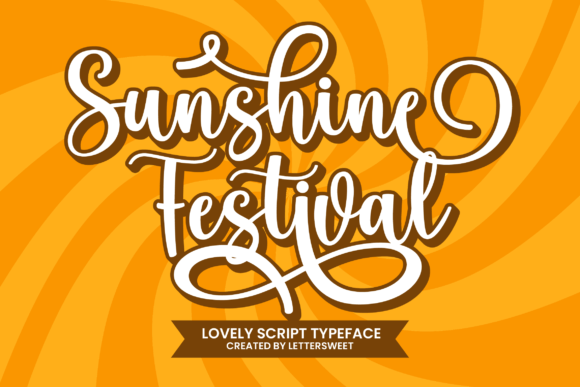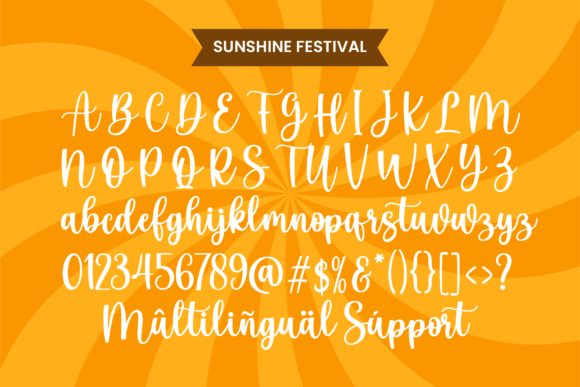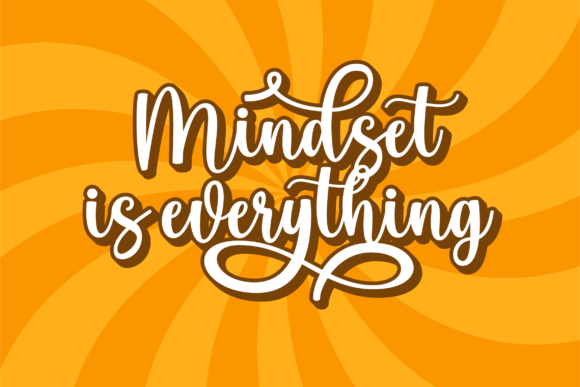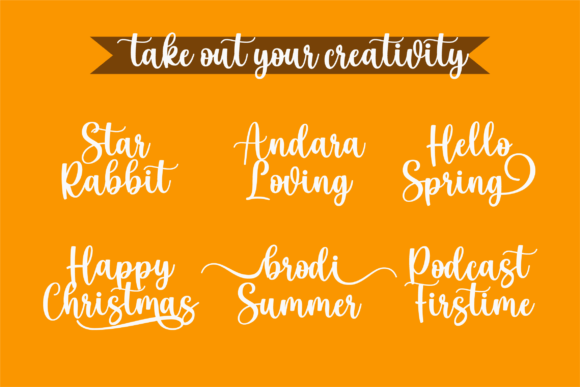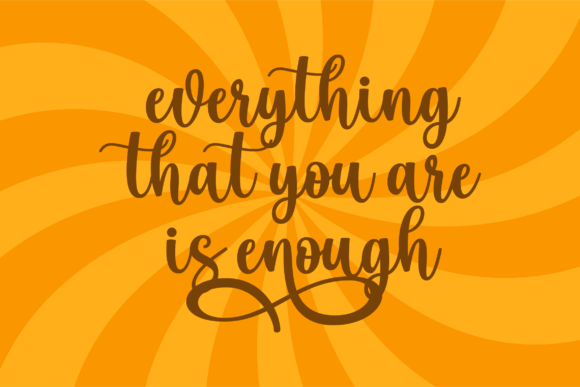
“Sunshine Festival” is a captivating and romantic script font that exudes beauty and elegance. This font is an ideal choice for a wide range of design applications, from wedding invitations and thank you cards to quotes, greeting cards, logos, and business cards. It adds a lovely handwritten touch that enhances the aesthetics of any project.
One of the standout features of “Sunshine Festival” is its breathtaking beauty and romantic charm. Each character is meticulously crafted with an exquisite touch, creating a font that exudes sophistication and a sense of romance. Whether you’re working on wedding stationery, quotes, or any other design project, “Sunshine Festival” adds a touch of class that captivates the viewer.
The font’s versatility is another strength. It can adapt seamlessly to various design aesthetics and themes, making it suitable for a wide variety of creative projects. “Sunshine Festival” can transform your designs into expressions of love and beauty.
For wedding invitations, “Sunshine Festival” is a perfect choice. Its romantic and elegant style sets the tone for a memorable and enchanting celebration. It adds a touch of sophistication and personalization to wedding stationery, leaving a lasting impression on couples and their guests.
Thank you cards and greeting cards benefit from the beauty of “Sunshine Festival” as well. Its lovely handwritten touch adds warmth and sincerity to your messages, making them even more heartfelt and appreciated.
In branding and logo design, “Sunshine Festival” can create a visual identity that radiates elegance and sophistication. Whether you’re launching a new business or revamping an existing one, this font can help you convey a sense of authenticity and creativity to your audience.
Additionally, “Sunshine Festival” being PUA encoded means that you can easily access all of its beautiful glyphs and swashes. This feature provides you with even more creative possibilities, allowing you to customize and personalize your designs effortlessly.
In summary, “Sunshine Festival” is a beautiful and romantic script font that adds a touch of elegance to your designs. Its versatility makes it suitable for various applications, including wedding invitations, thank you cards, quotes, greeting cards, logos, business cards, and more. With “Sunshine Festival,” you can infuse your projects with a lovely handwritten touch that leaves a lasting impression of beauty and romance.